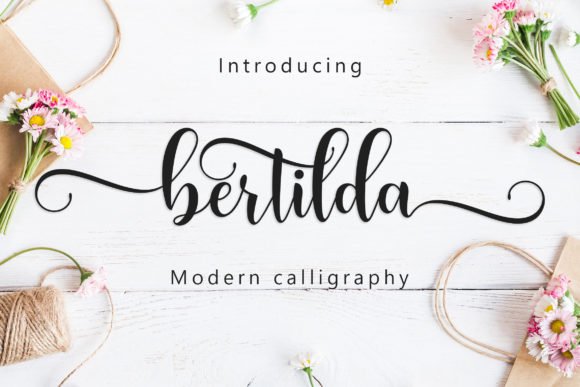
The Perfect Script for Your Next Design Project
You know that moment when a spark of creativity hits, and you envision the perfect design project? It’s the one that stands out from the crowd, captures attention, and leaves a lasting impression. For many designers, this vision often starts with the perfect font – one that exudes elegance, sophistication, and personality. Enter the Bertilda Script Font, a beautiful and unique typeface designed to elevate any design project.
Whether you’re working on a wedding invitation, a logo, or a branding campaign, the Bertilda Script Font is the perfect addition to your design arsenal. Its versatility and stylish flair make it a valuable asset for designers looking to create stunning visual effects. With the Bertilda Script Font, you can add a touch of sophistication and whimsy to your projects, setting them apart from the ordinary and making them truly unforgettable.
Bertilda Script Font Key Features
- Font Type: Script Font, ideal for creative and elegant designs
- Unique Characteristics: Handwritten and cursive script, with beautiful flourishes and connections between letters
Bertilda Script Font Review
I’ve had the chance to work with Bertilda Script Font, and I must say it’s a beautiful addition to any design project. ✨ The flowing, cursive lines give it a elegant and sophisticated feel, perfect for wedding invitations, birthday cards, or any other occasion that calls for a touch of whimsy.
One of the things I love about Bertilda Script Font is its versatility. ✨ It works well for both digital and print projects, and its bold lines make it easy to read even at smaller font sizes. The font also includes a range of ligatures and swashes, which can be used to add a personal touch to your designs.
While Bertilda Script Font is a great addition to any designer’s toolkit, it’s not without its limitations. ⚠️ The font may be a bit too ornate for some projects, and the ligatures and swashes can sometimes be distracting if overused. Additionally, the font may not be the best choice for projects that require a lot of text, as the cursive lines can make it difficult to read.
Overall, I’m a big fan of Bertilda Script Font. While it may have some limitations, its unique style and versatility make it a great addition to any designer’s toolkit. With a little practice and patience, you can create stunning designs that showcase the beauty of this font.
- Beautiful, flowing cursive lines
- Includes ligatures and swashes for added personal touch
- Works well for both digital and print projects
- May be too ornate for some projects
- Not ideal for projects with a lot of text
Getting the Most Out of Bertilda Script Font
To get the most out of Bertilda Script Font, use it for:
1. Titles and headings for a touch of elegance.
2. Invitations, wedding stationery, and other formal events.
3. Creating a vintage or rustic look in your designs.
Bertilda Script Font is commonly used for:
2. Formal event invitations.
3. Branding and logos with a vintage or elegant touch.
Alternatives to Bertilda Script Font for Designers
Great Vibes Font is a modern script font designed by Handmade Font Co. It’s perfect for creating a relaxed and friendly atmosphere in your designs. This font is ideal for use in invitations, social media graphics, and other casual projects where a friendly tone is desired.
Great Vibes Font is similar to Bertilda Script Font in its fluid, cursive style, but it has a more modern feel and a wider range of characters. It’s also more versatile and can be used for a variety of projects, from logos to packaging designs.
Lobster Font is a bold and eye-catching script font that’s perfect for creating a dramatic effect in your designs. This font is ideal for use in headings, titles, and other areas where you want to draw attention.
Lobster Font is different from Bertilda Script Font in its more dramatic and attention-grabbing style. While Bertilda is more elegant and refined, Lobster is more bold and playful. Lobster is also more suitable for use in headings and titles, while Bertilda is better suited for body text.
Q: What is the character set of Bertilda Script?
Bertilda Script includes a wide range of characters, including Latin, Greek, and Cyrillic alphabets, as well as punctuation and special characters. The font also includes ligatures and swashes to enhance its script-like appearance.